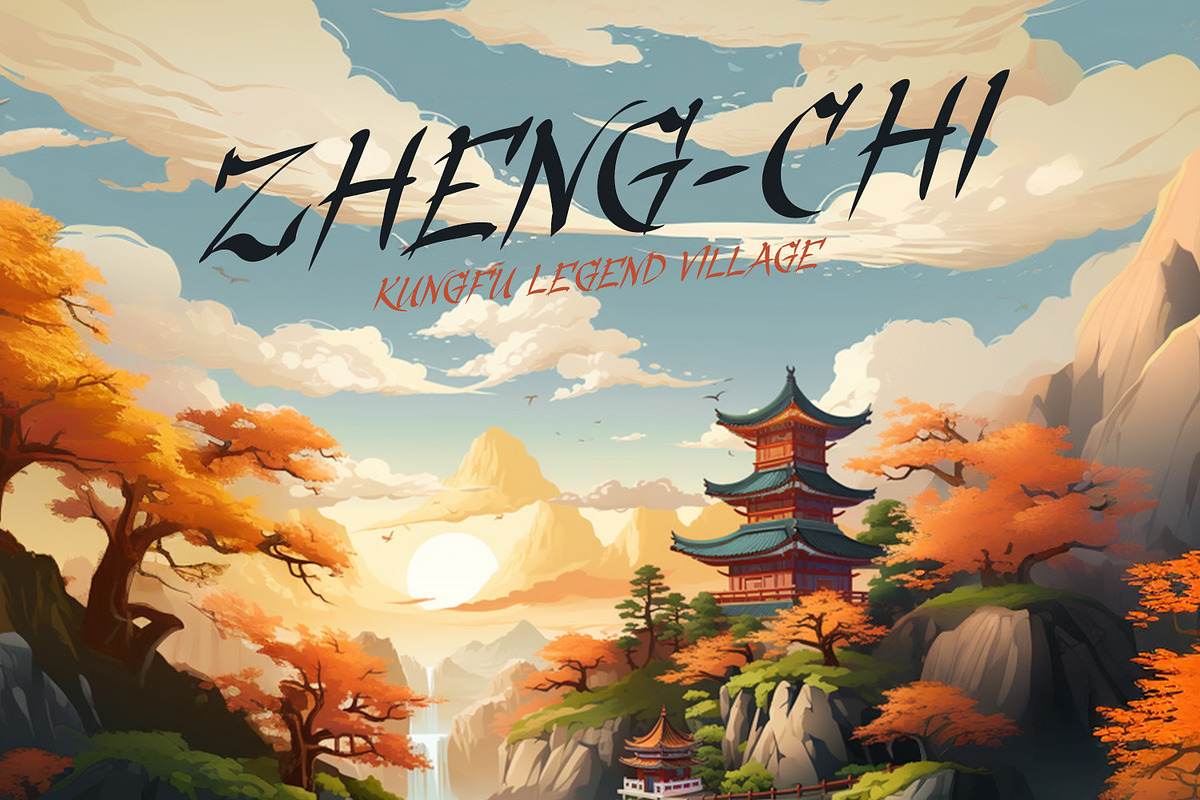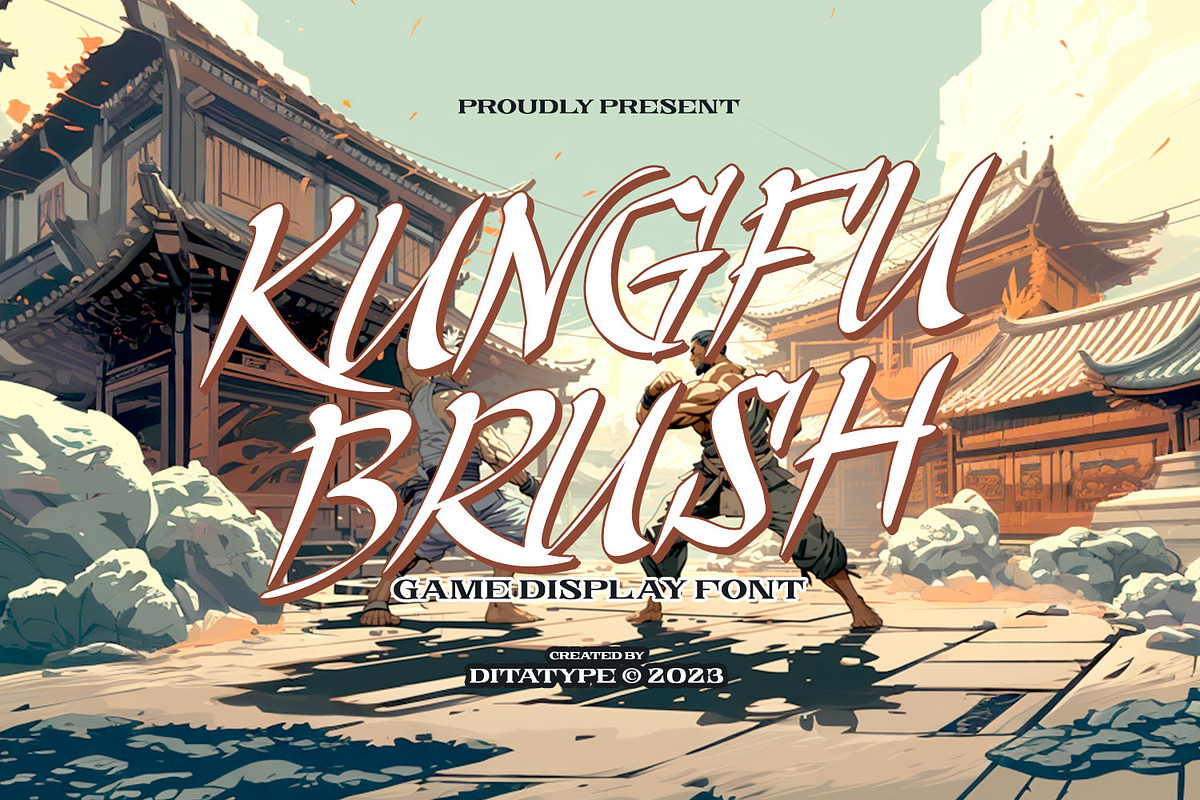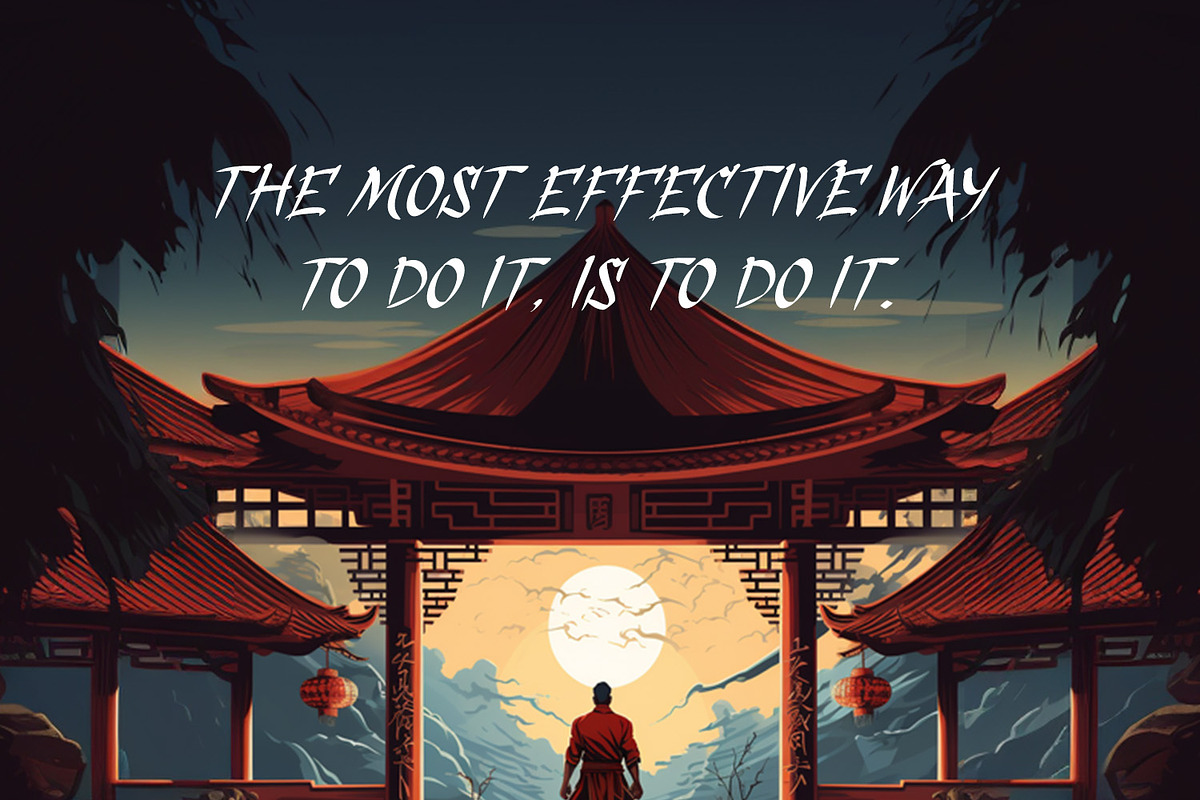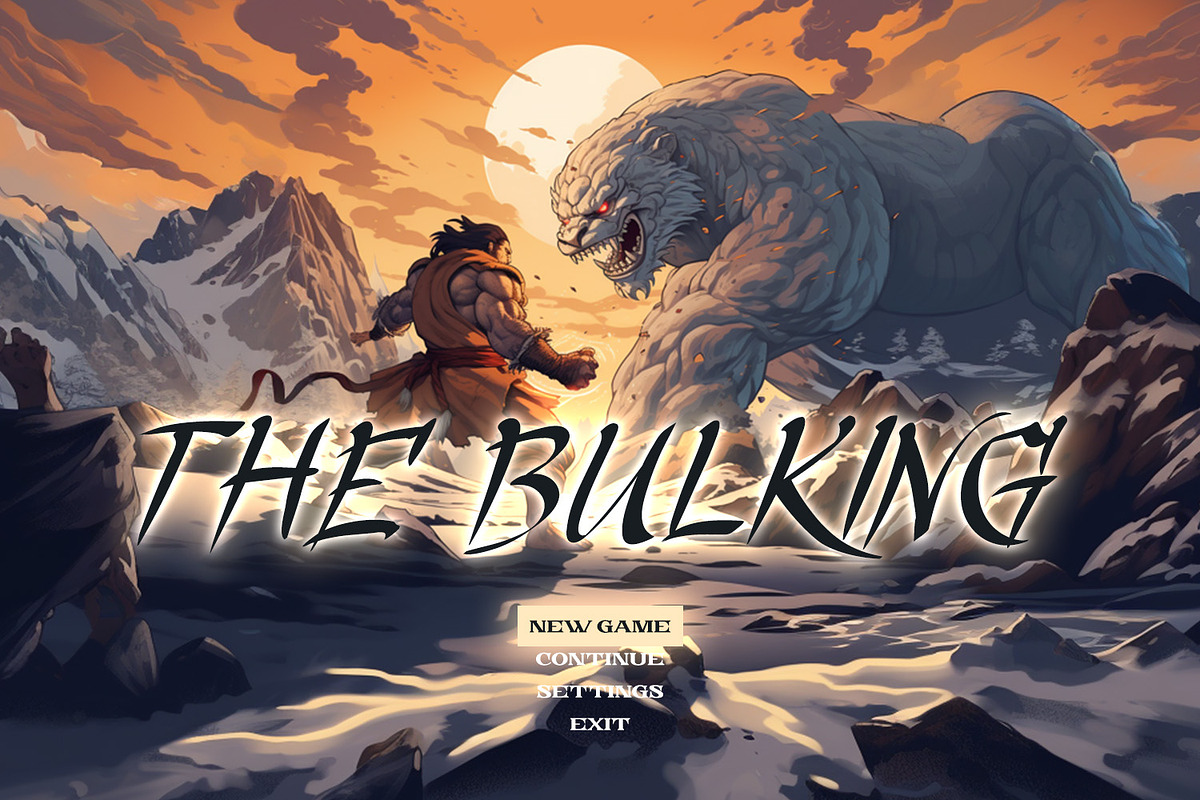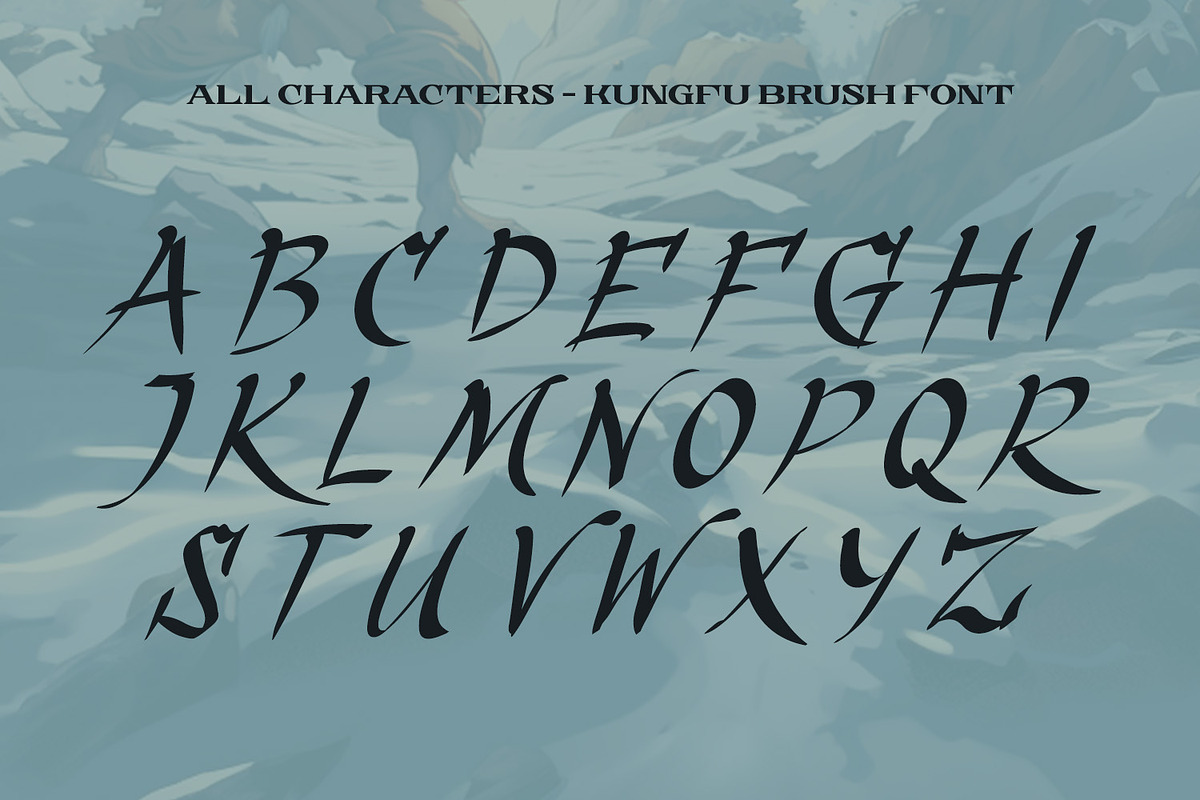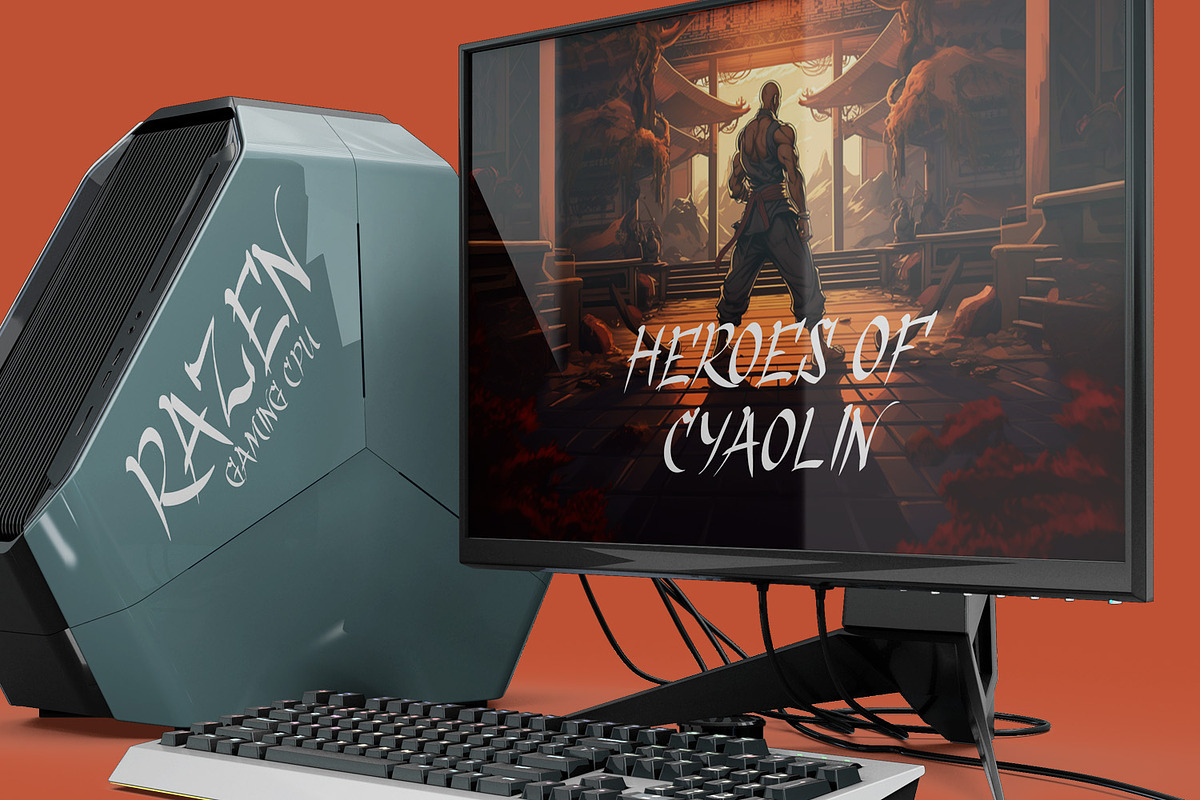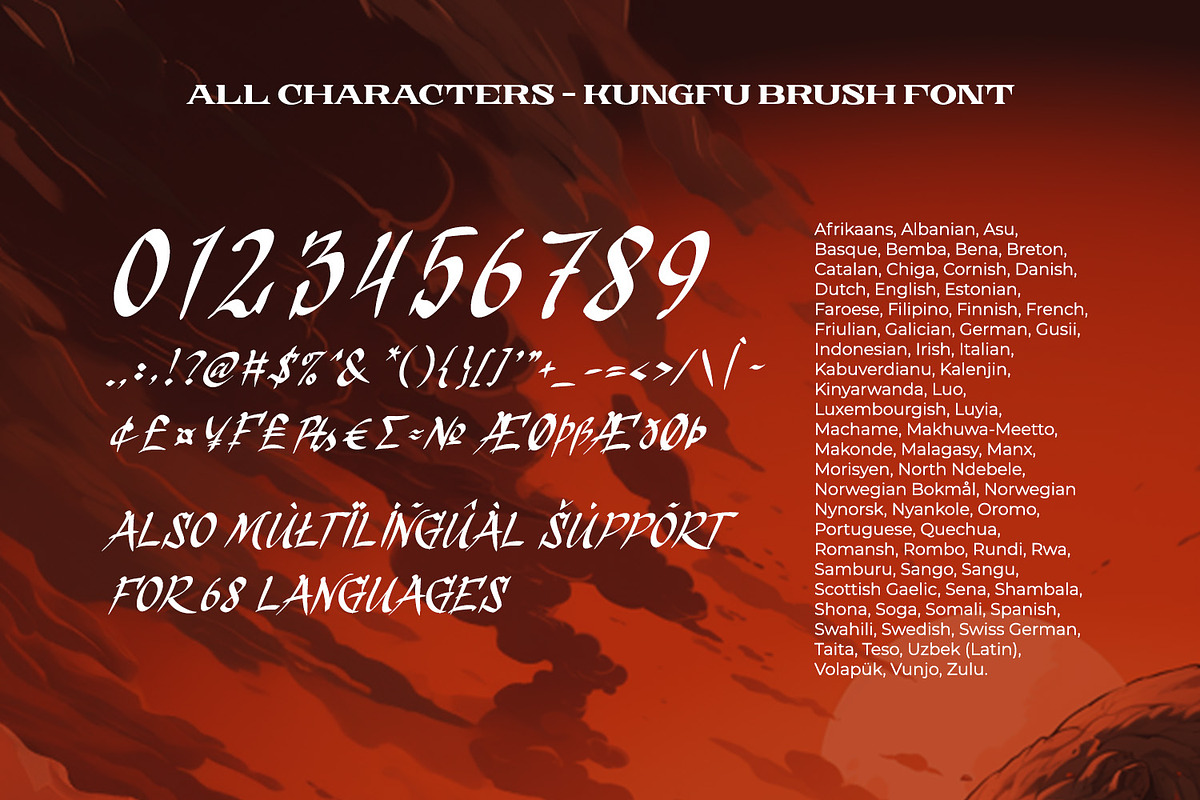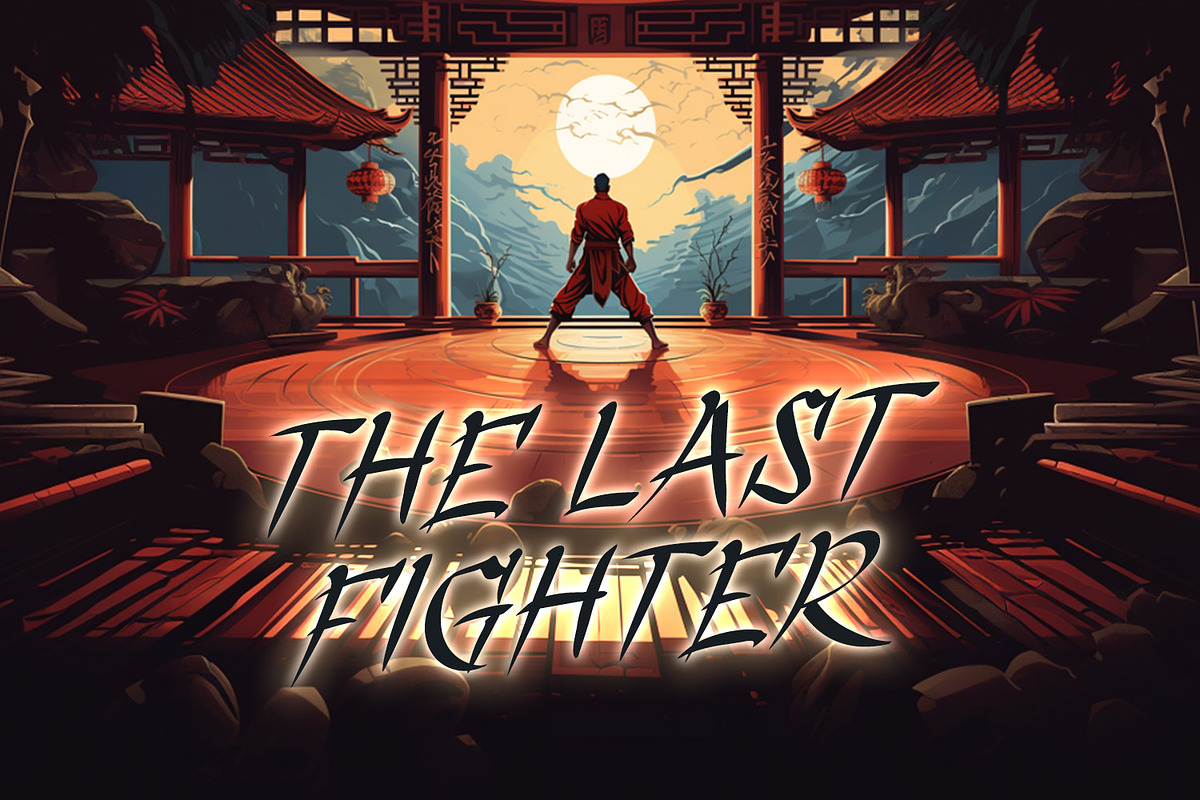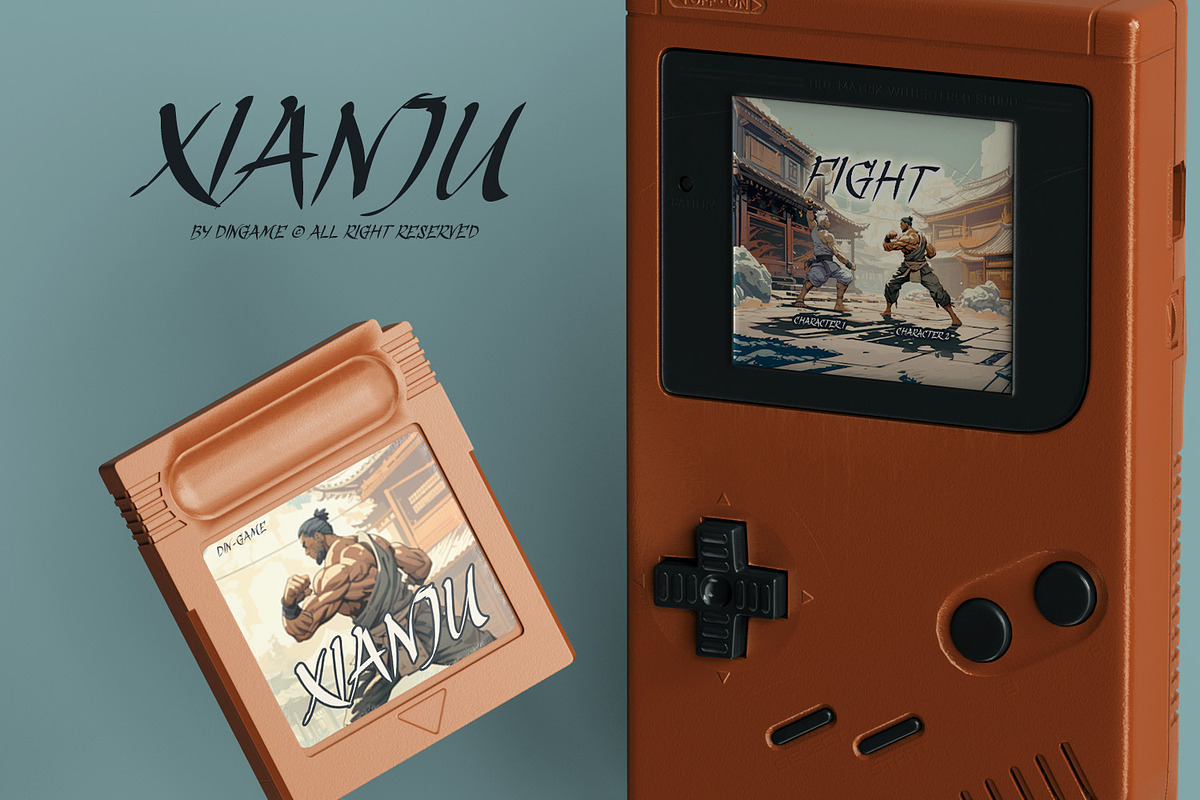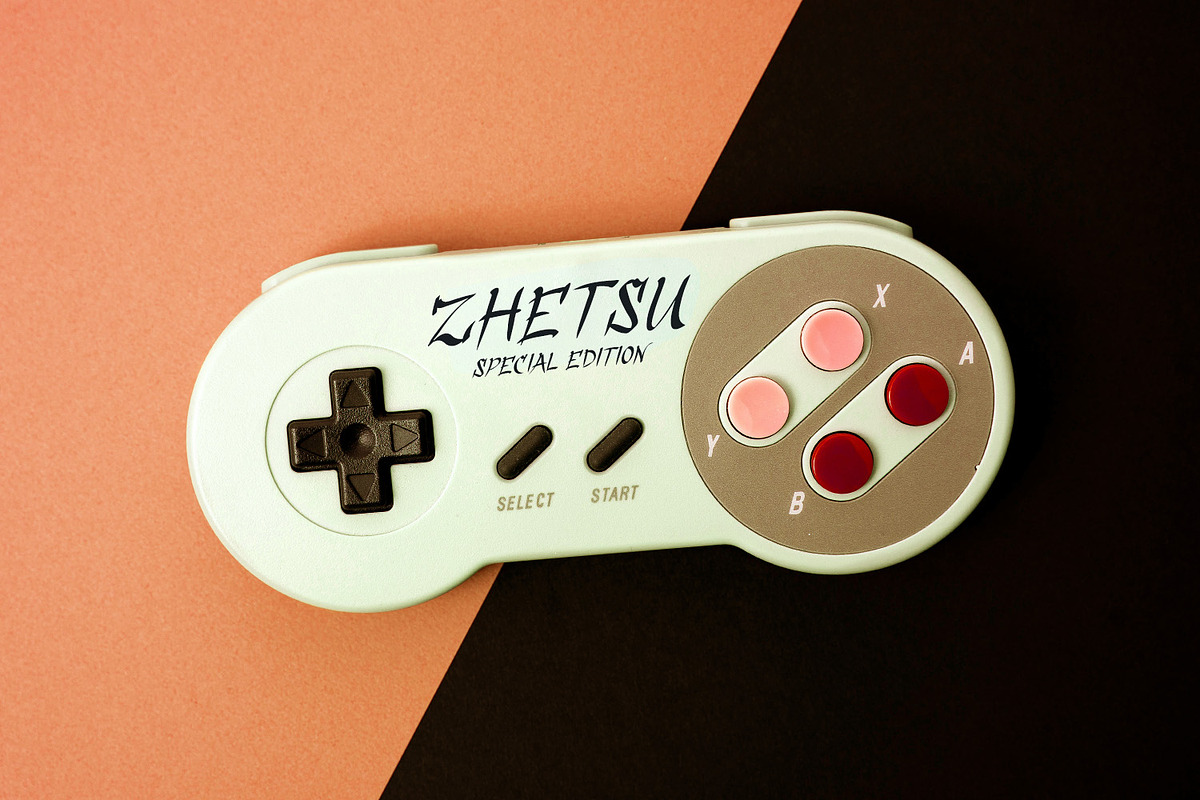
Kungfu Brush
Kungfu Brush is a captivating game-themed display font designed in uppercase, infusing the essence of martial arts and the artistry of brush strokes. It features a distinct brush-style accent that brings a sense of handcrafted artistry to each letter. Inspired by the fluid movements of martial arts, the font captures the energy and elegance of brush strokes. This unique feature adds a touch of creativity and authenticity, making this font stand out from conventional display fonts. Designed with fairly low contrast, it prioritizes a balanced and harmonious visual experience. The subtle differences in stroke width across the letters create a smooth and comfortable reading experience. With its uppercase design, it exudes power and strength. Each letter commands attention and showcases the boldness of martial arts. The font's uppercase style adds a sense of authority and captures the spirit of determination found in the martial arts realm. You can also enjoy the available features here.
Kungfu Brush fits in headlines, logos, posters, titles, branding materials, print media, editorial layouts, website headers, and any projects that aim to capture the essence of combat, adventure, and discipline. Find out more ways to use this font by taking a look at the font preview.